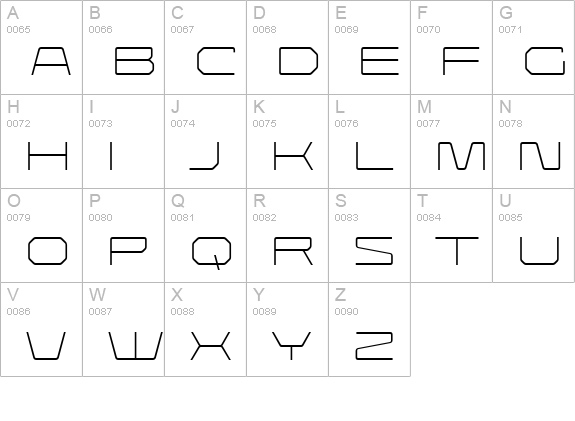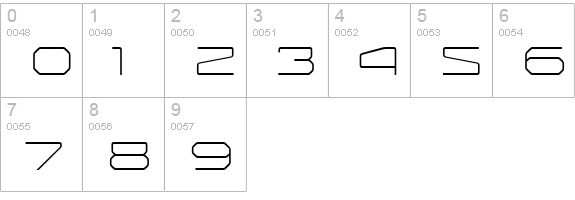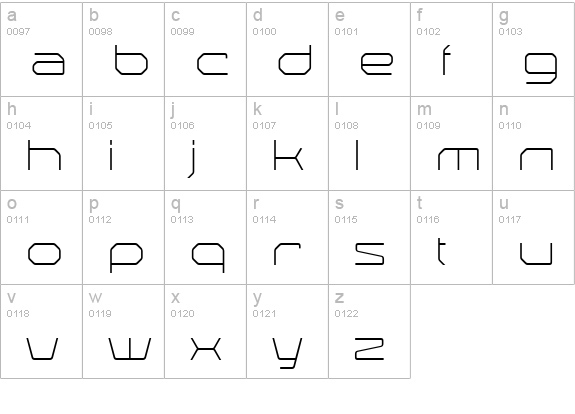
Introducing Lineavec font, a modern and stylish typeface that is perfect for a wide range of design projects. With its sleek lines and contemporary design, Lineavec is ideal for branding, advertising, packaging, and more. This versatile font exudes sophistication and elegance, making it a great choice for any project that requires a touch of class. The best part about Lineavec font is that it is completely free to download at FontsMarket.com. Now you can add this stunning font to your collection without having to spend a dime. Don't miss out on the opportunity to elevate your designs with Lineavec font – download it today and start creating beautiful, professional-looking projects effortlessly.